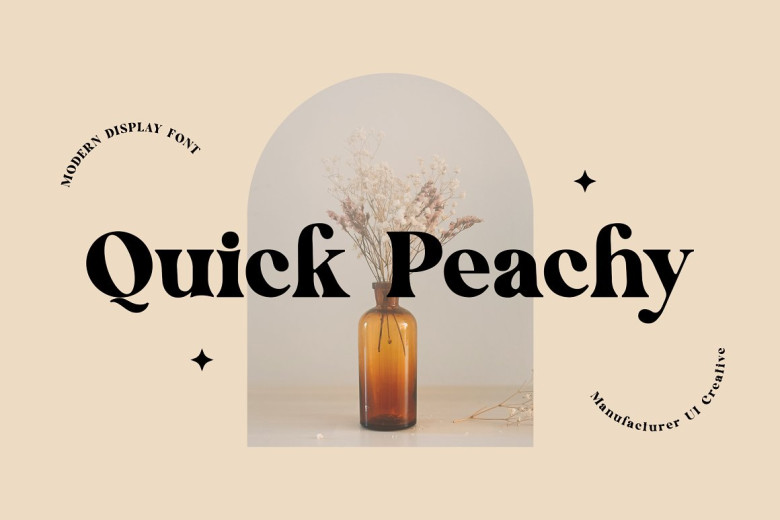
Quick Peachy Font
Quick Peachy Font is a stylish font that is also retro and splendiferous. A traditional-style serif font, it does not look out of place, whether printed in black and white on museum-quality paper or plastered in lavishly colorful, high-definition graphics across the front of a building. This font is suitable for a wide variety of projects, such as signature, stationery, logo, wedding, typography quotes, magazine or book cover, website header, clothing, branding, packaging design, and more.
Quick Peachy Serif Font